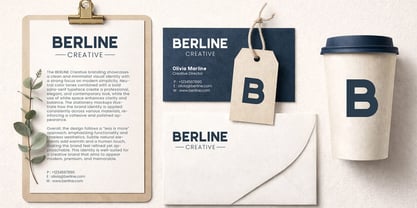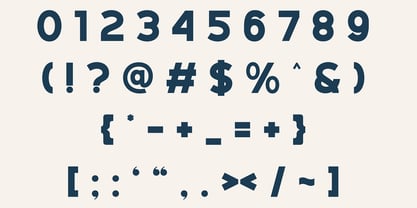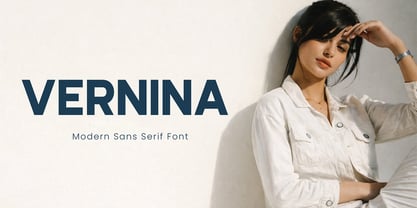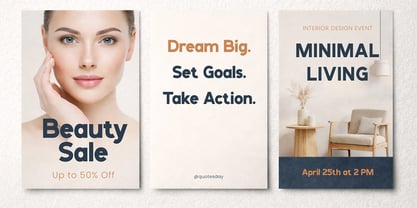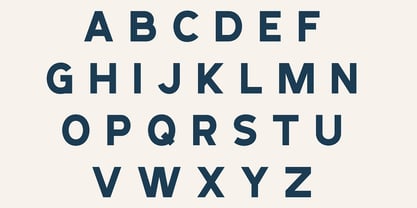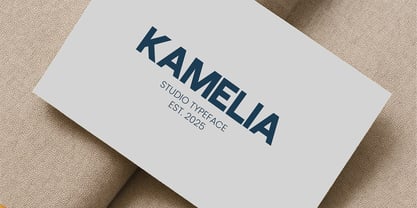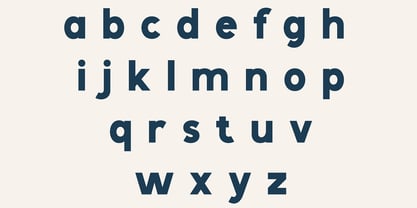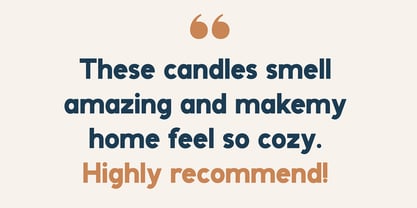
Vernina
The Vernina Font Family was designed by Michael Everson and published by Qiubare Studio. Vernina contains 1 styles. More about this family
Vernina is a modern bold sans serif font crafted to infuse confidence and sophistication into any visual project. Featuring clean lines, balanced proportions, and elegant curves, this typeface offers a powerful and professional aesthetic that effortlessly stands out. Ideal for branding, fashion editorials, packaging design, websites, and advertising, Vernina adds a contemporary touch while preserving timeless elegance. Its bold presence is perfect for impactful headlines, minimalist logos, and high-end product designs. Elevate your next design with Vernina — the bold sans serif that embodies sophistication. Vernina is available with: - Uppercase - Lowercase - Numerals - Punctuation - Multilingual Support